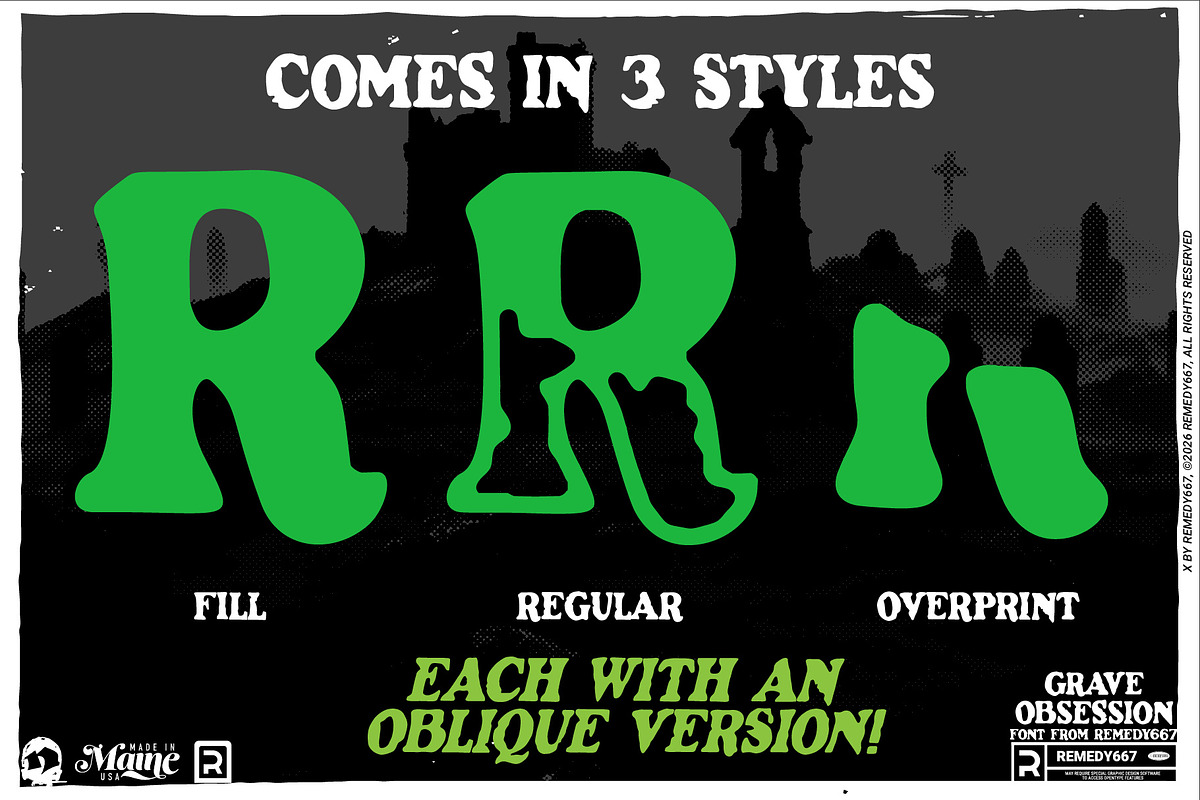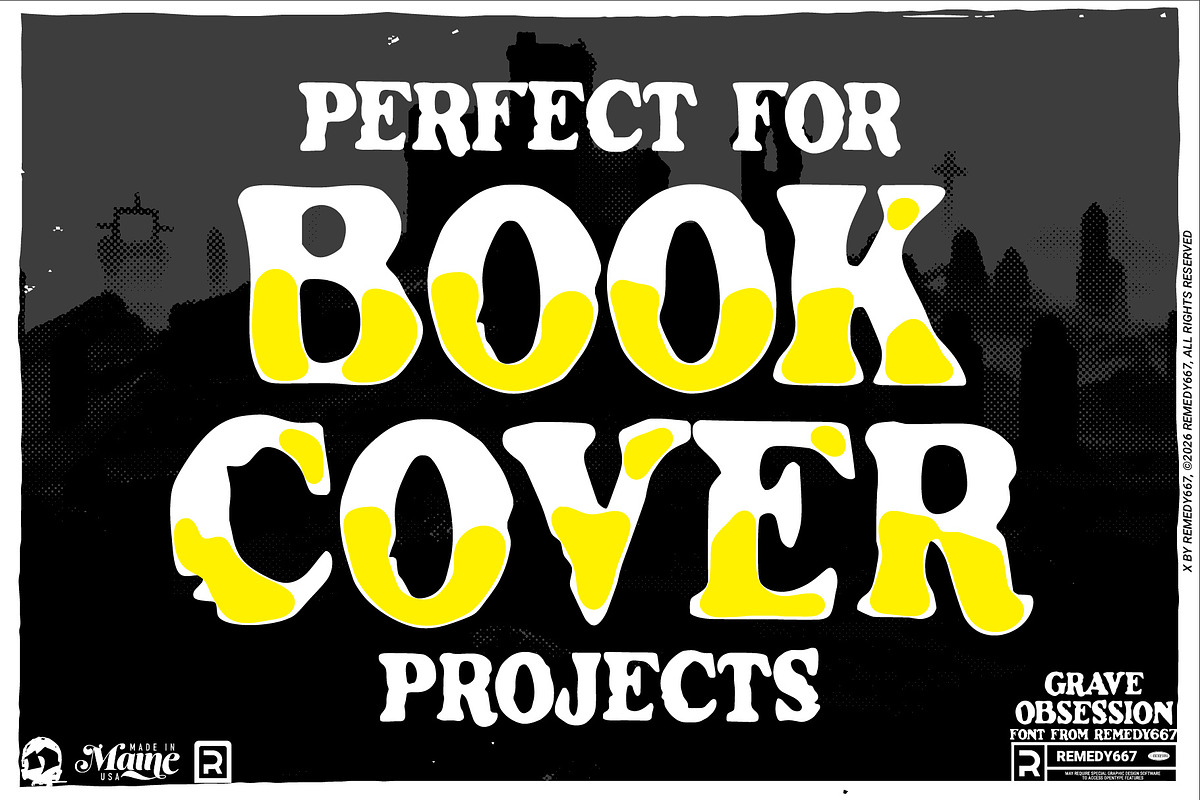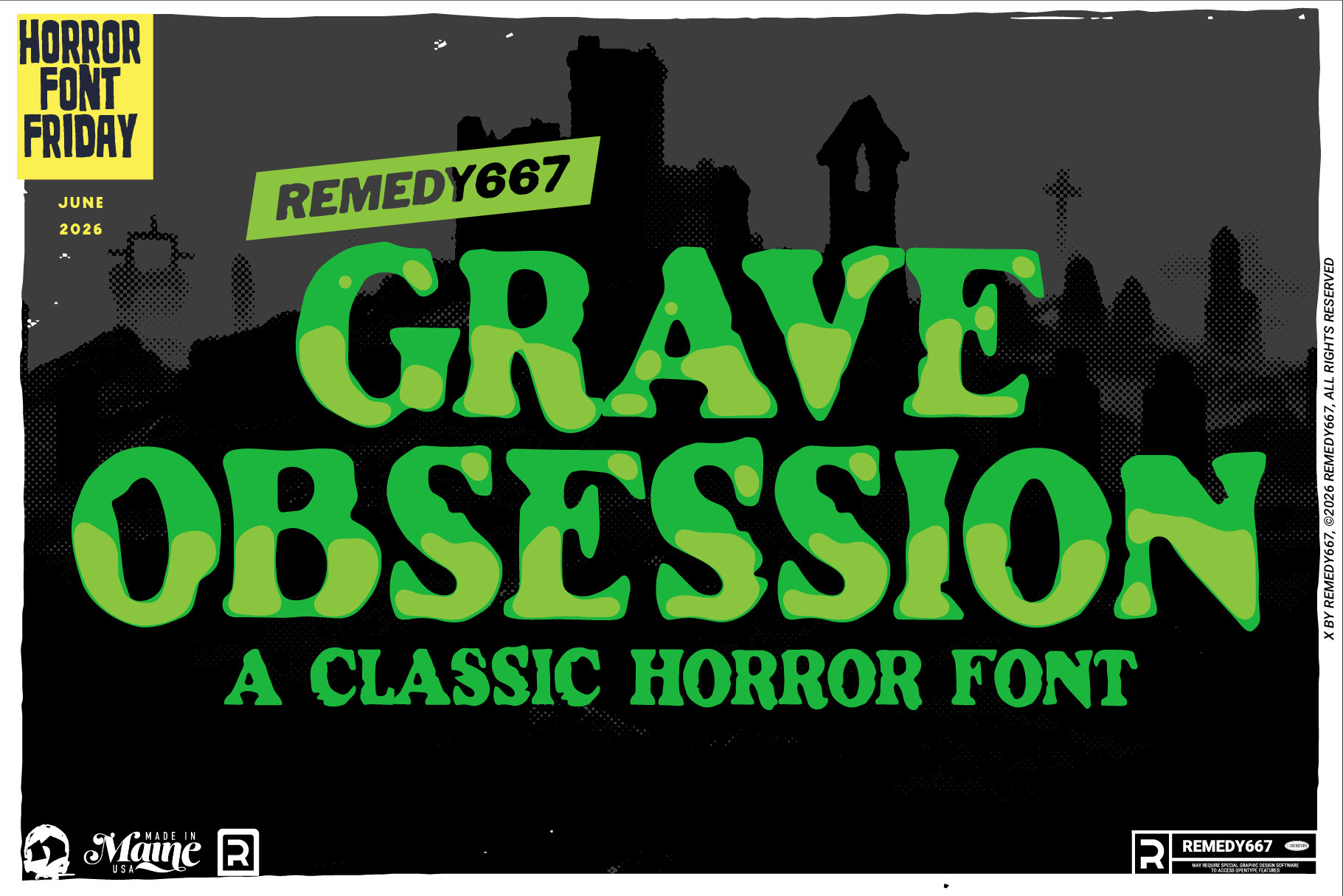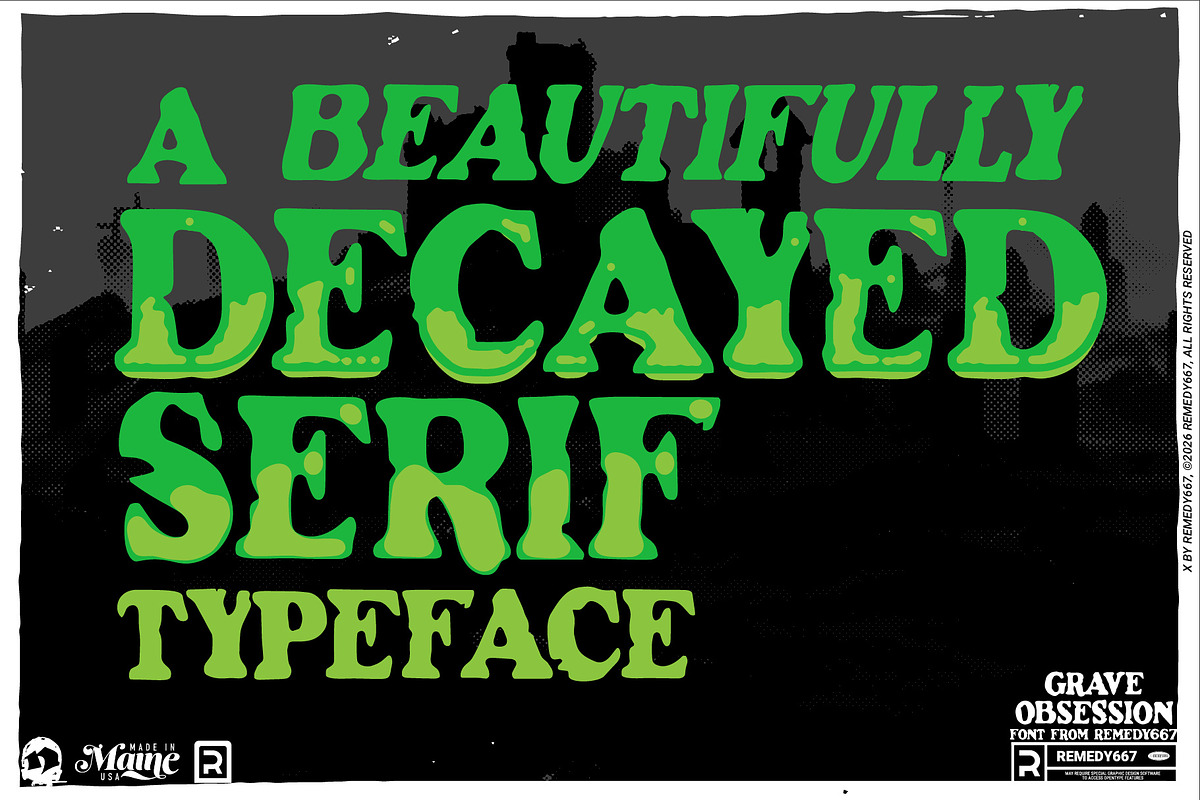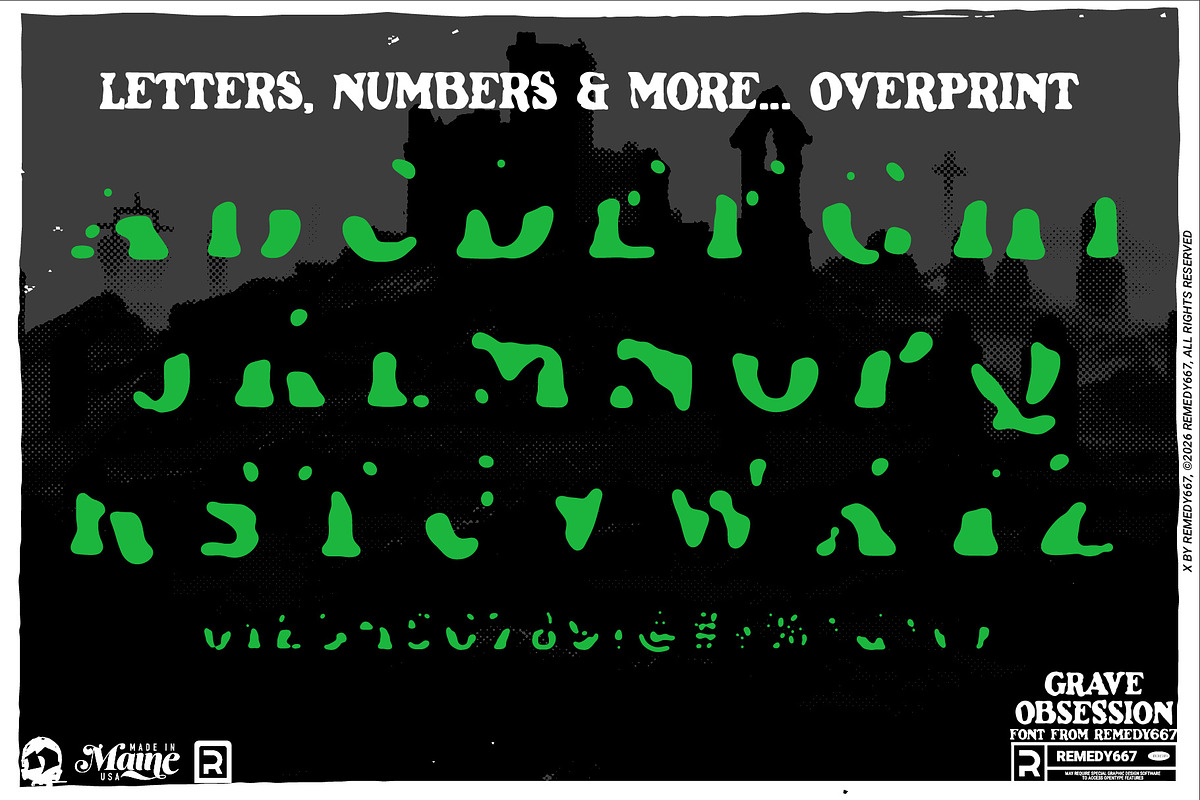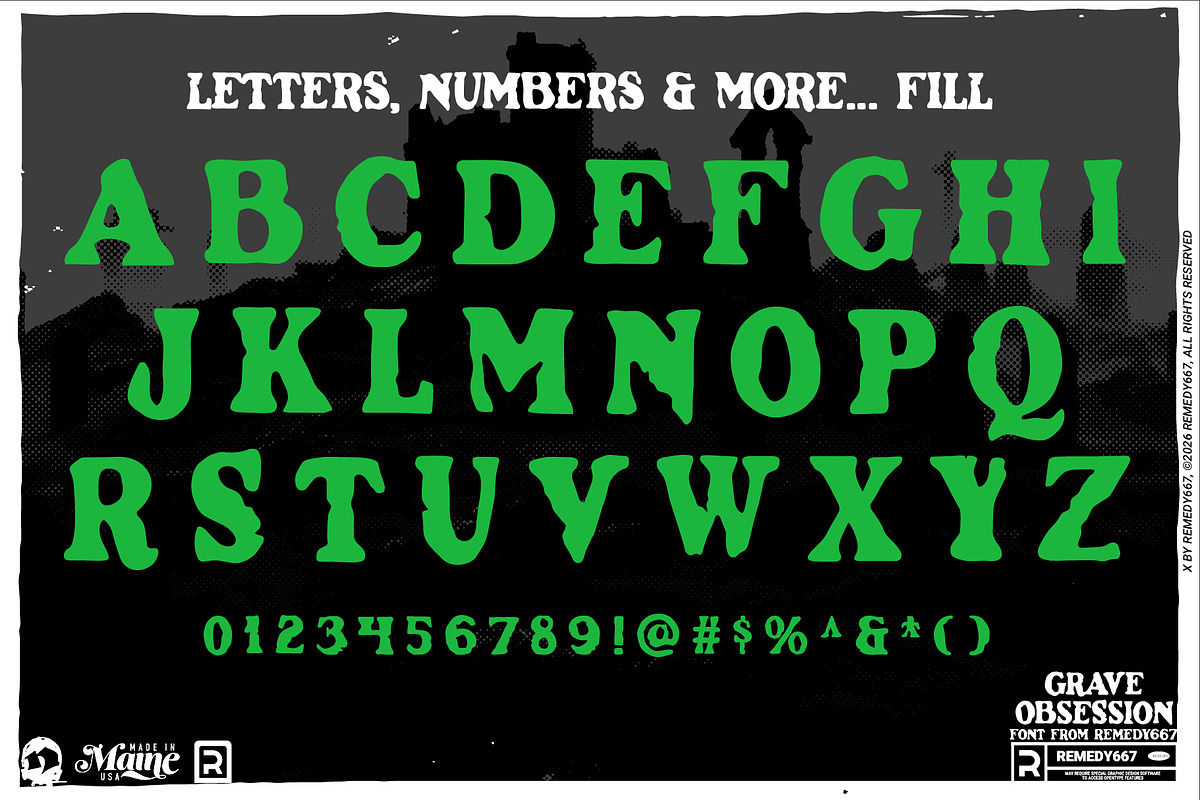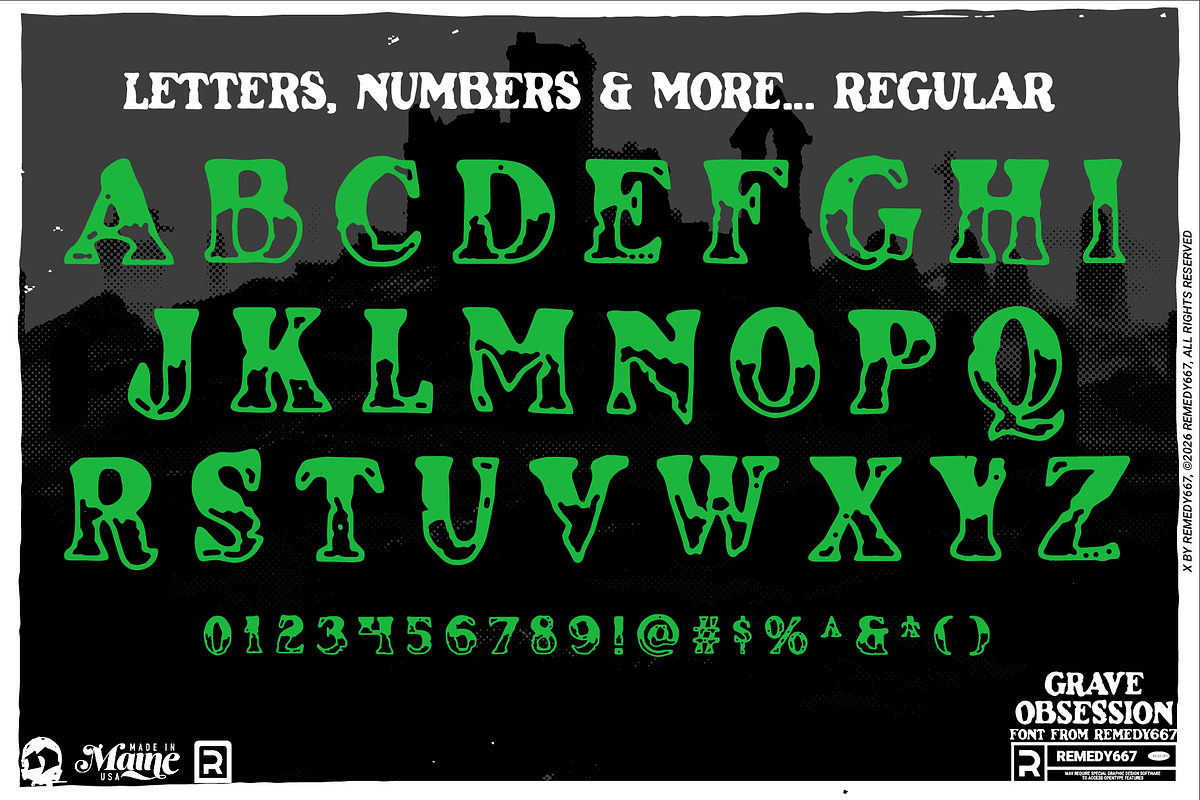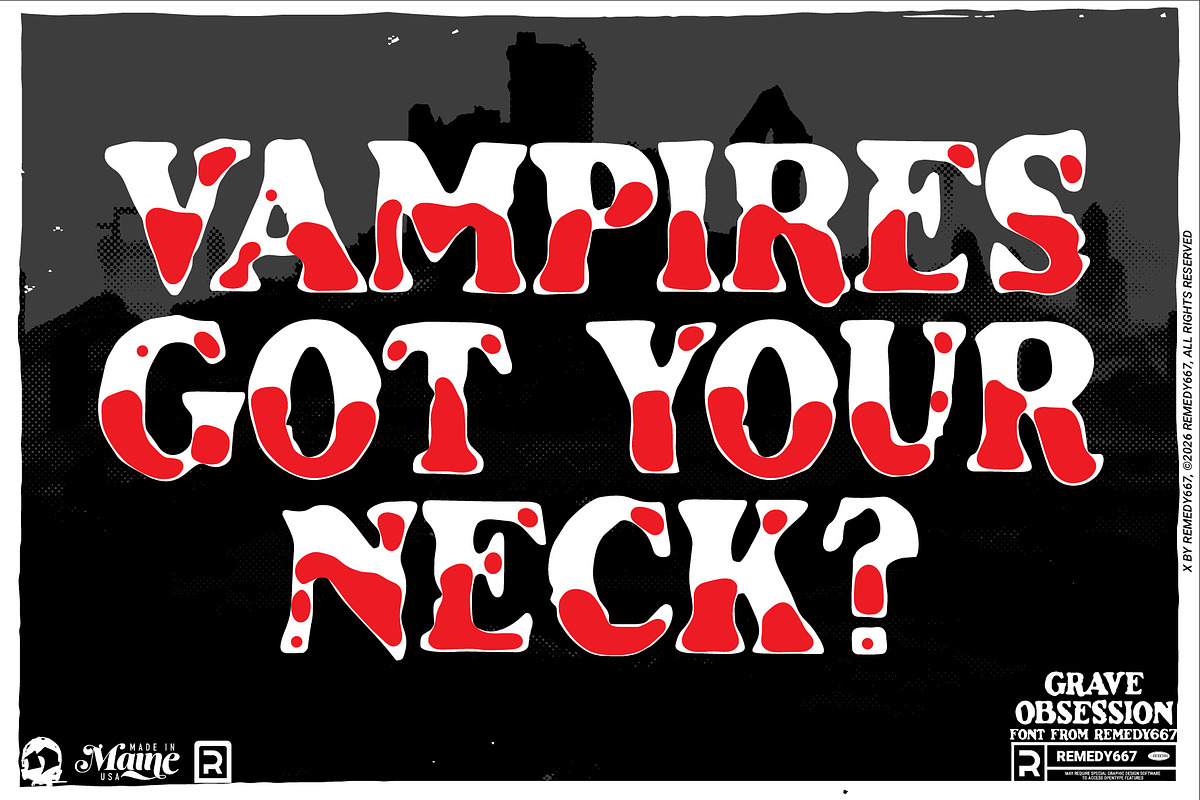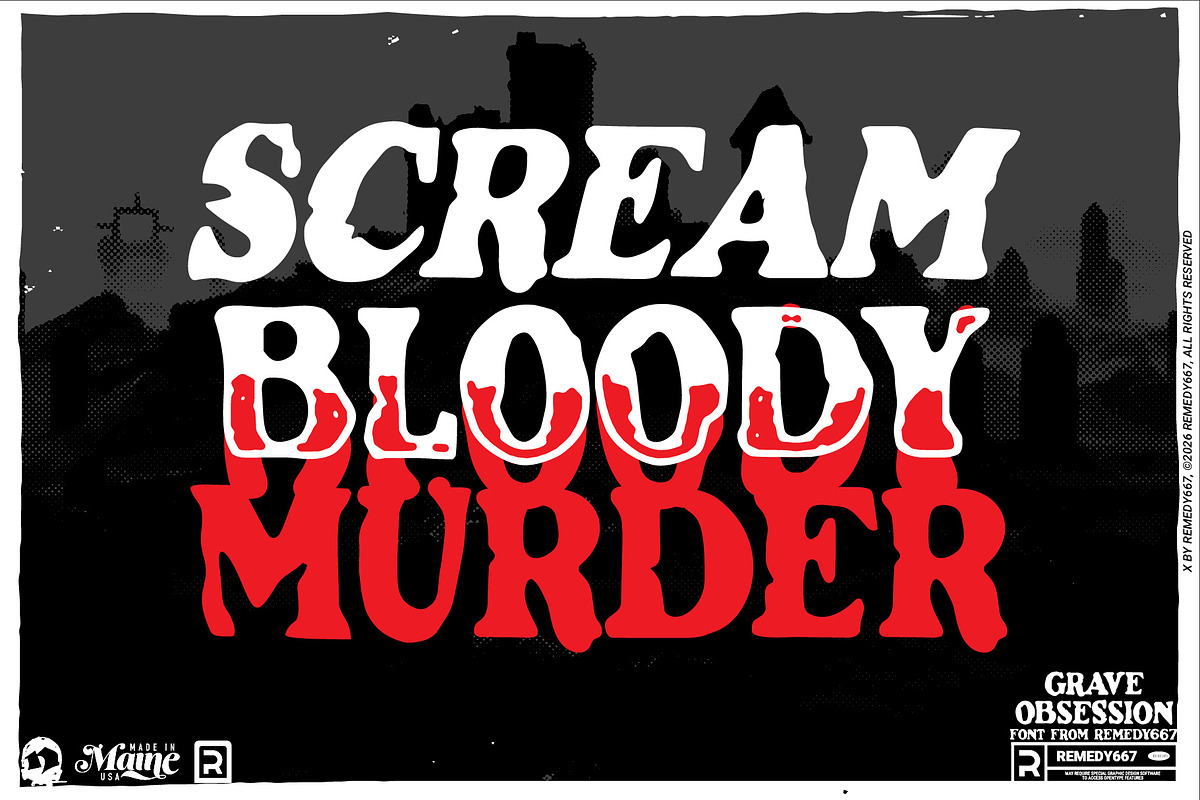
Grave Obsession - Grunge Font
Some obsessions are healthy, and others end with a shovel, a midnight graveyard visit, and a vampire lurking in the shadows! Grave Obsession comes to us from the opening credits of Count Yorga, Vampire. Channeling the decaying display type of early 1970s horror cinema with worn, deteriorated forms feel like they’ve been left out for decades.
Perfect for titles, taglines, and anything that needs a touch of vintage dread, Grave Obsession balances readability with delicious texture. The layered styles and rotating characters create natural variation and depth.
Inspired by the opening credit lettering of Count Yorga, Vampire
Rotating characters for natural, varied typography
Layerable font styles for creating distressed and dimensional effects
Multilingual support for worldwide horror projects